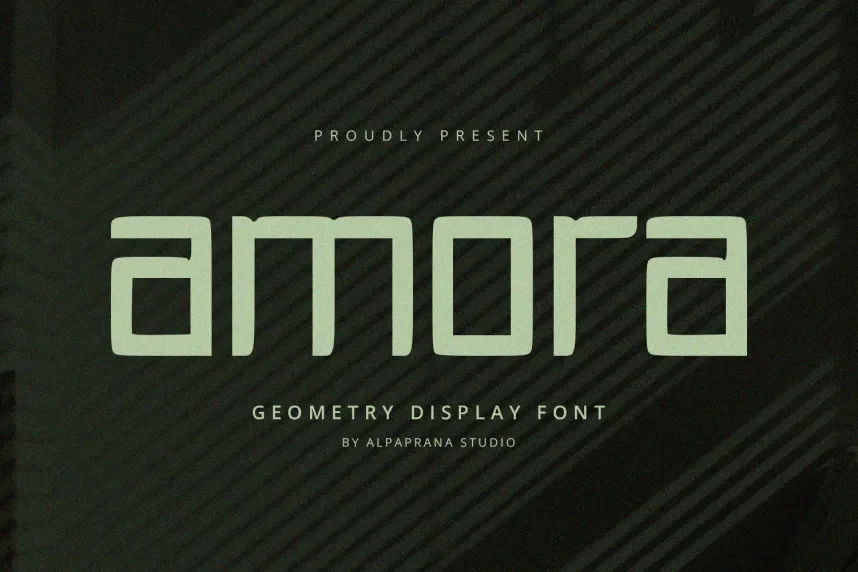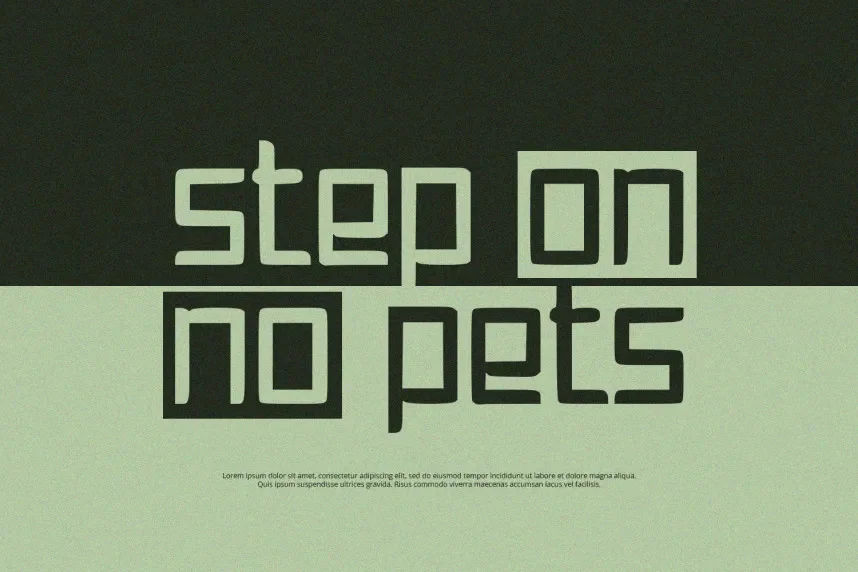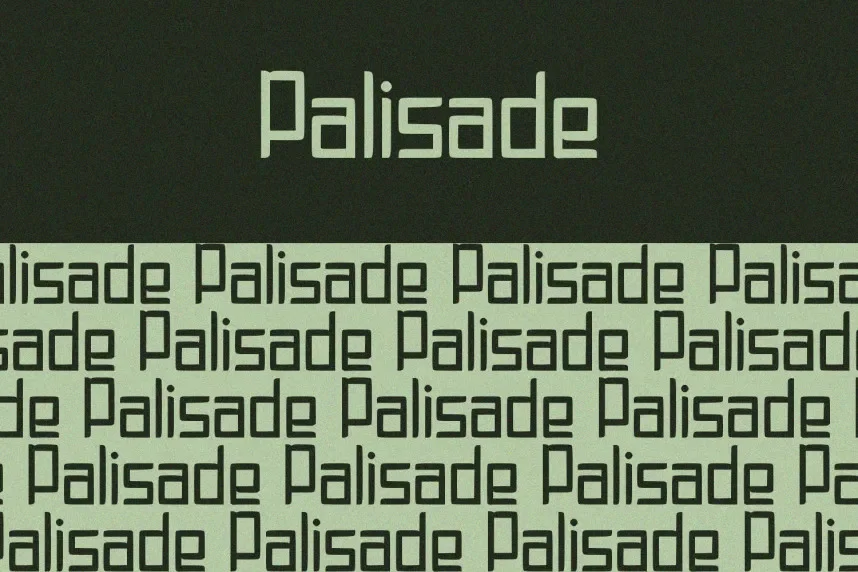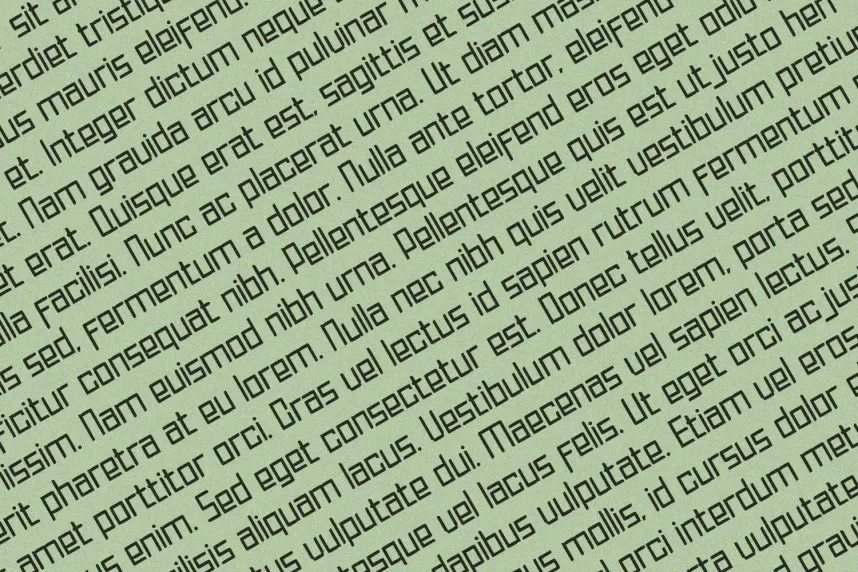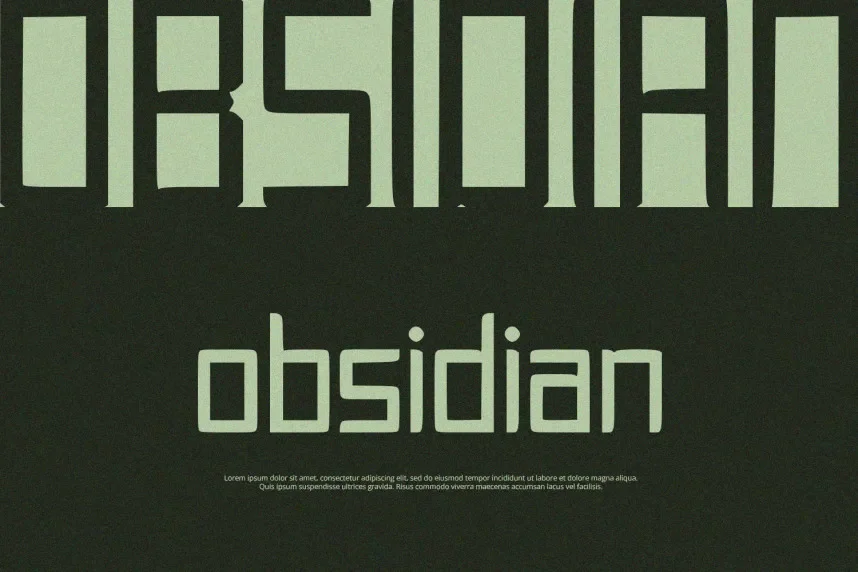
Amora Font is a bold display typeface with clean, modern letterforms. Its strong, geometric shapes make it ideal for projects that need attention-grabbing headlines, logos, and branding that requires a strong visual presence.